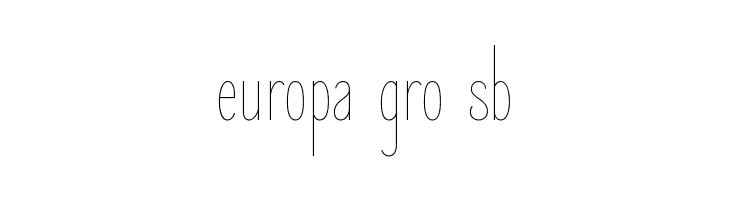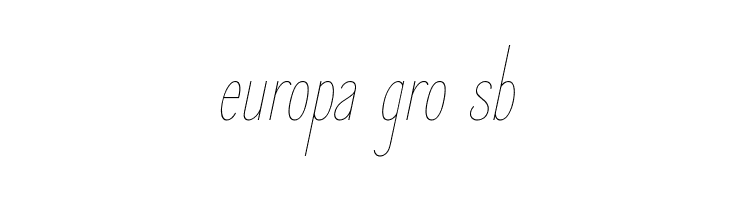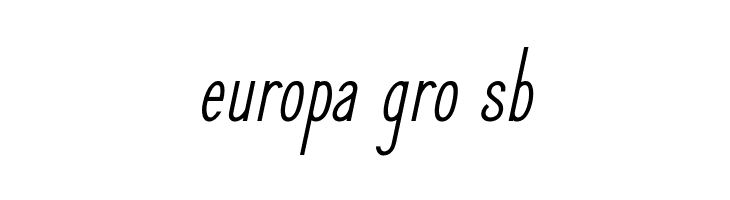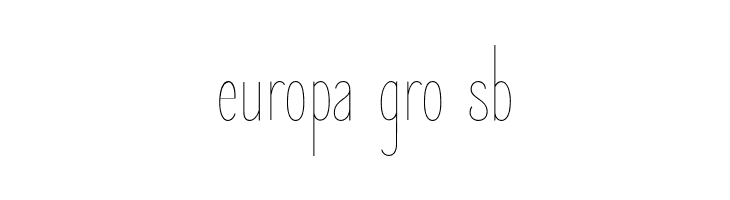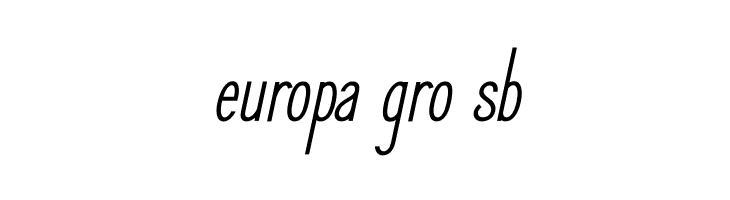
A sleek, semi-bold italic font with a modern and elegant design.
A sleek, modern sans-serif font with semi-bold italic styling.
A sleek, modern sans-serif font with thin, elongated letterforms.
A sleek, thin sans-serif font with elongated, elegant letterforms.
A thin, elegant, and modern italic font with sleek, elongated characters.
A thin, elegant, and italicized font with a modern and sophisticated style.
A playful, hand-drawn font with bold, uneven strokes and a whimsical style.